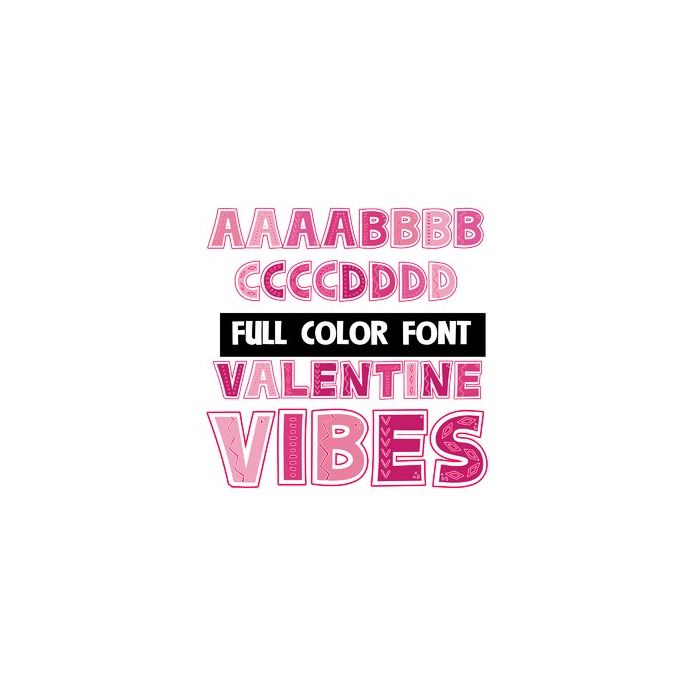
This full-color font features bright pinks and red and an electric feel. There is a secondary alt case for both upper and lower that you can access through Silhouette's glyph map.